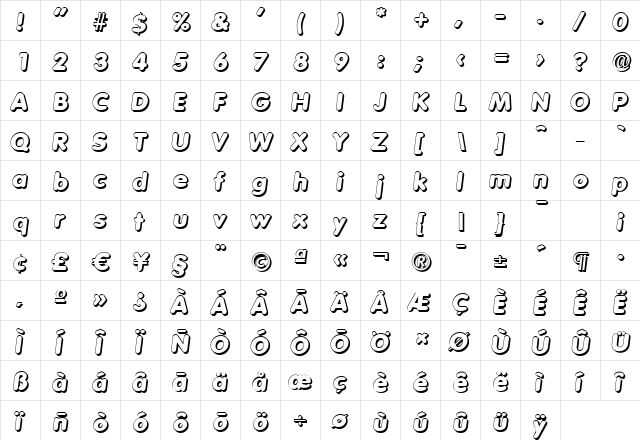
RolandBeckerShadow-Heavy Italic
RolandBeckerShadow-Heavy brings ornamental detail and strong personality to headlines and identities, where visual impact matters more than quiet functionality. The dynamic lean of this cut emphasises speed and emphasis in any layout.
Font Pairing: Pair with a clean neutral sans-serif for body copy to let RolandBeckerShadow-Heavy's character lead without overwhelming the composition.
Pro Tip: Use RolandBeckerShadow-Heavy exclusively at display sizes — it was designed to be seen, not read at length. Let a neutral companion handle body copy.